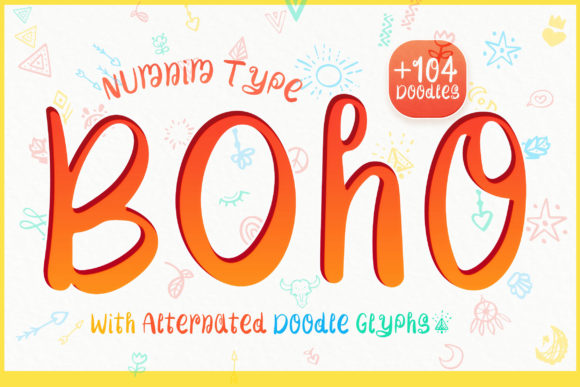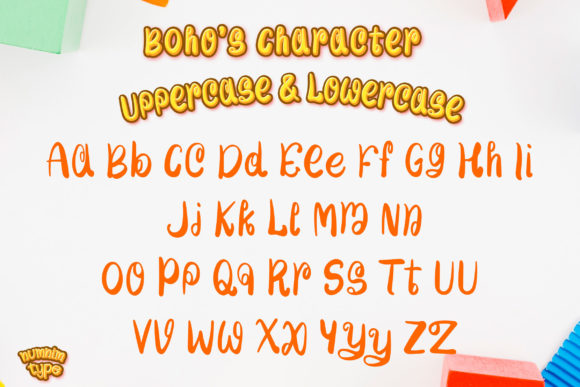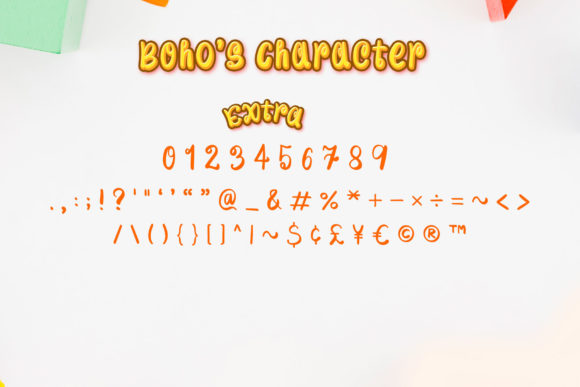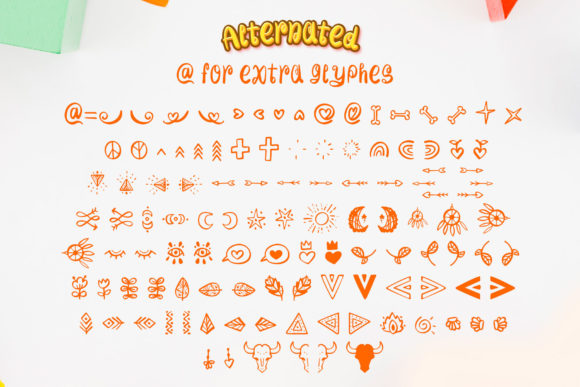
“Boho” is a delightful and friendly duo font that consists of a handwritten script font and a set of accompanying dingbats. This font is designed to bring a joyful and playful vibe to your designs, especially for school or other children’s projects.
The handwritten script font of “Boho” has a sweet and versatile style, perfect for creating a wide range of designs. Whether you’re working on school posters, children’s book covers, birthday invitations, or any other project related to kids, this font will add a charming touch to your creations.
Additionally, “Boho” includes a set of dingbats, which are small decorative icons and symbols that can complement your designs. These dingbats feature various elements like stars, hearts, arrows, and other whimsical illustrations, providing you with additional creative possibilities.
One of the advantages of “Boho” is that it is PUA encoded, which means you can access all the glyphs and swashes with ease. This feature allows you to access and utilize the extra characters, ligatures, and stylistic alternates included in the font, enhancing your design options and adding more uniqueness to your projects.
Whether you’re designing educational materials, crafting projects, party decorations, or anything else related to children, “Boho” is a font that will bring a joyful and friendly atmosphere to your work. Fall in love with its sweet and versatile style and let your creativity shine through!